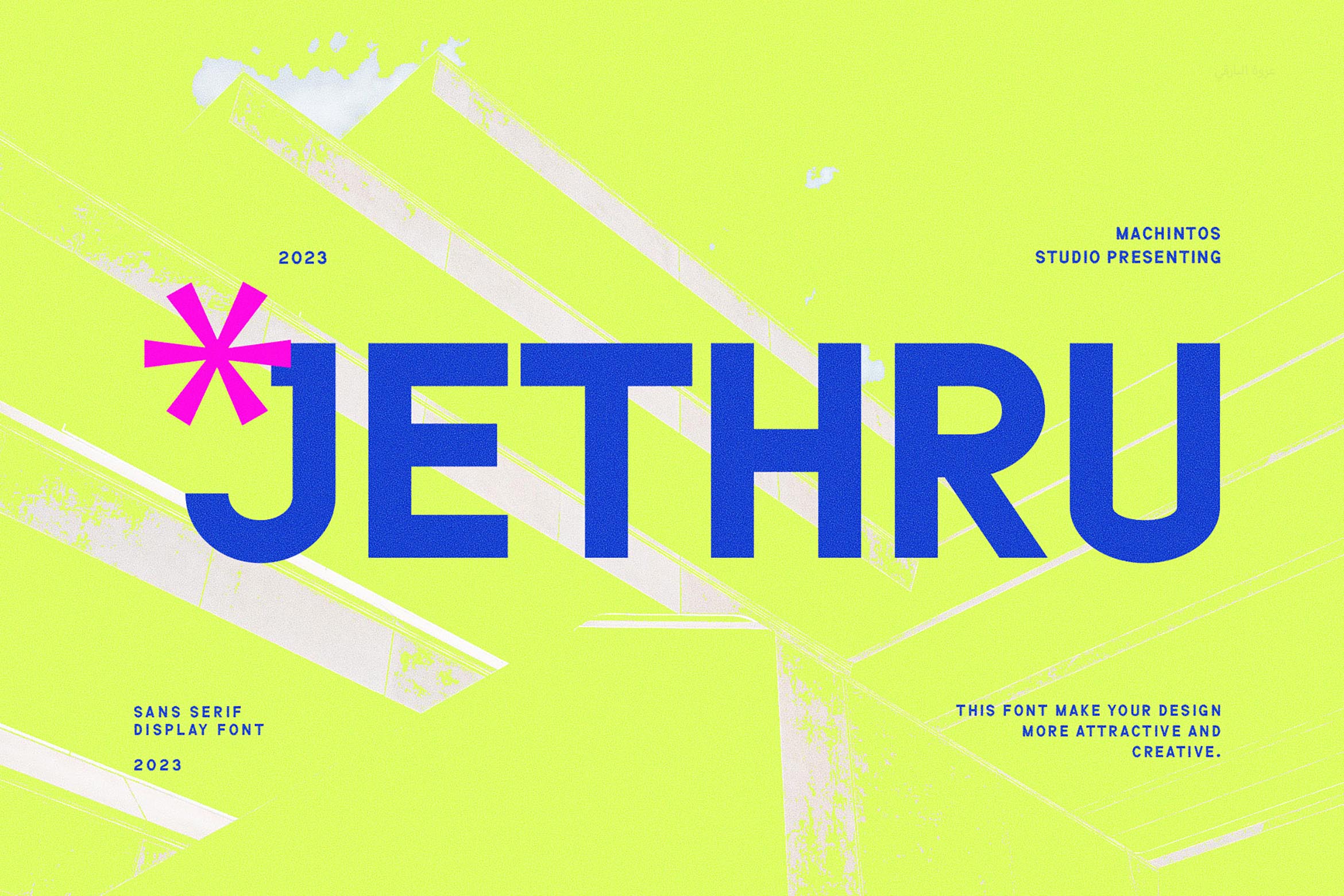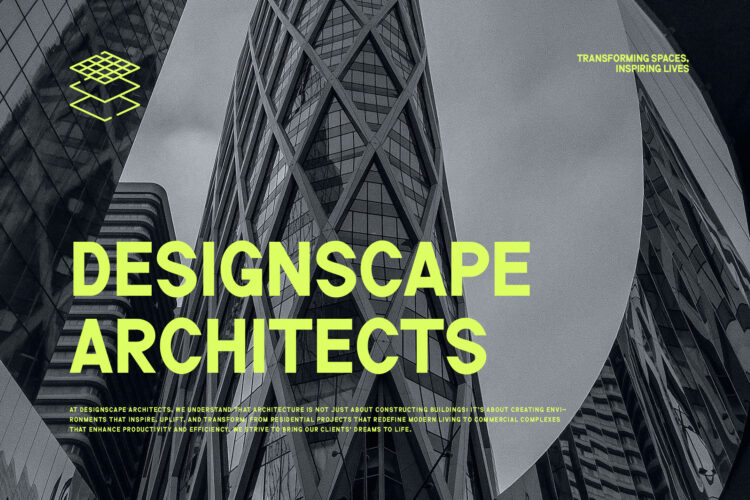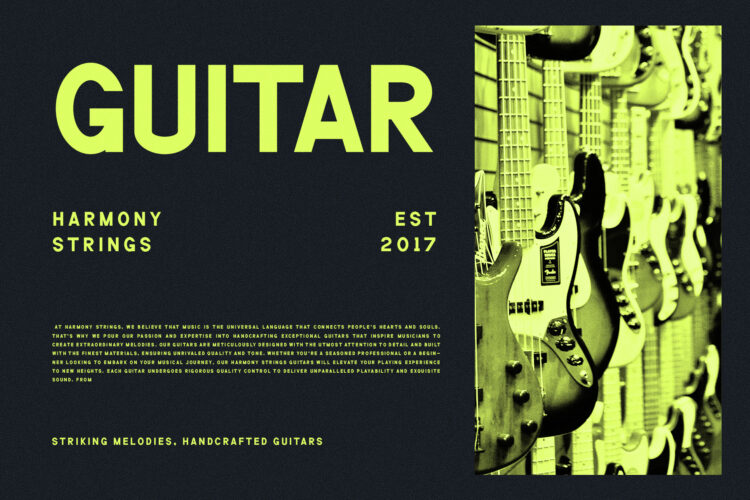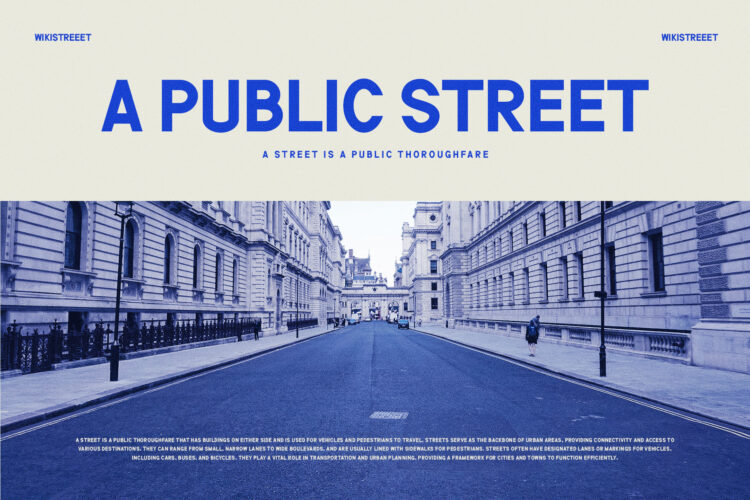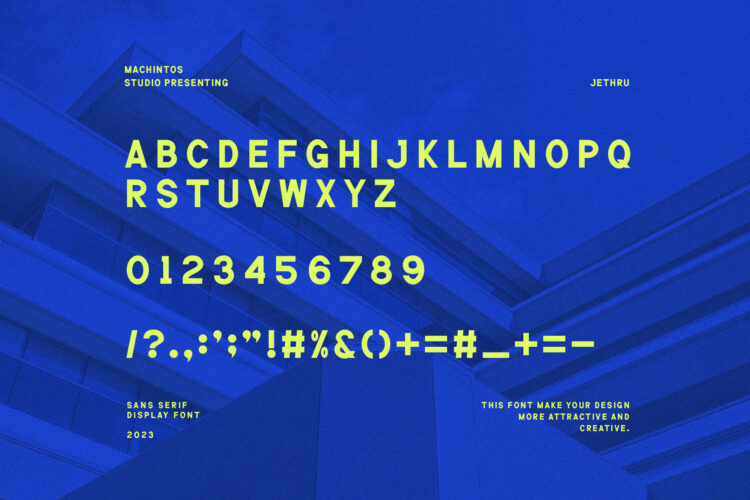
Introducing our new Jethru, modern sans serif font with elegant style this is perfect for branding, logos, invitation, magazines, product packaging and more.
Jethru – Modern Sans Serif